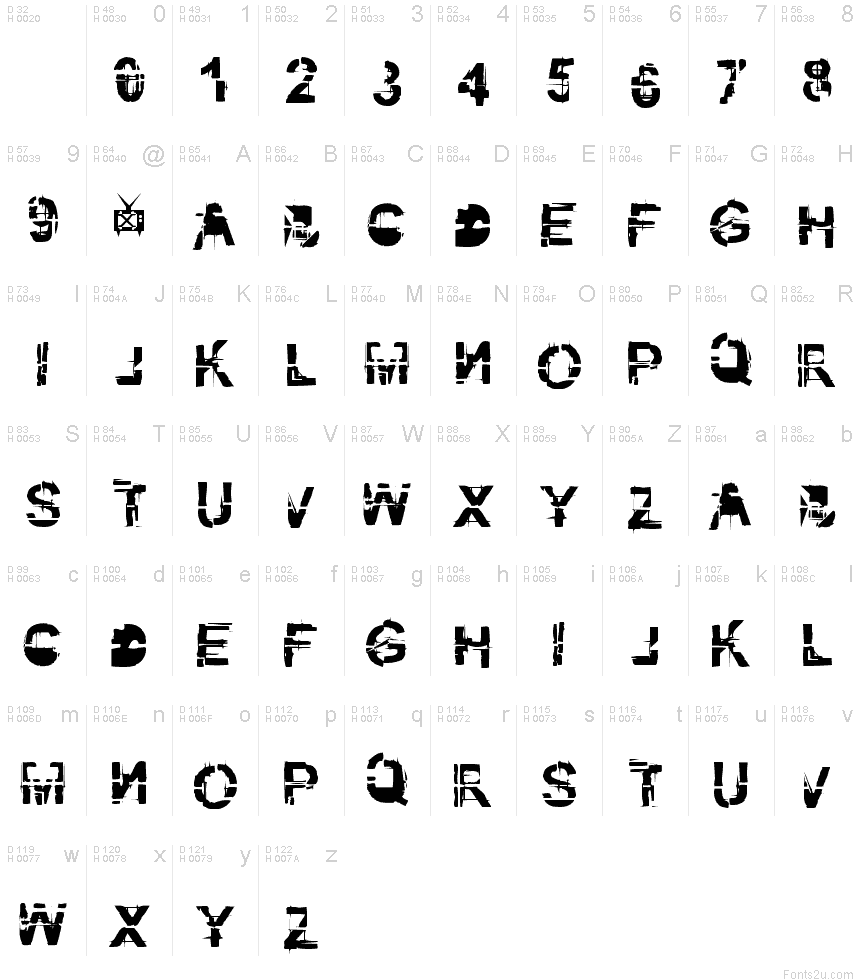
kibblez no bitz
Kibblez No Bitz font by Xero Harrison is a free eroded display typeface that looks like it’s been chewed up by photocopiers, concrete, and static. Huge black slabs are hacked apart by razor‑sharp gaps and splintered edges, so letters feel more like torn posters than tidy glyphs. The chunky forms still lock into a tight grid, which keeps the chaos readable while giving every word a jagged, industrial punch.
Using Kibblez No Bitz, your titles slam onto the page like a distorted drum hit—loud, gritty, and impossible to ignore. This free font works beautifully for gig and festival posters, hardcore or experimental album covers, underground zines, streetwear graphics, and glitchy motion titles. Keep it big and sparse for maximum impact, and pair it with a clean, narrow sans serif for body copy to let the fractured shapes really snarl.